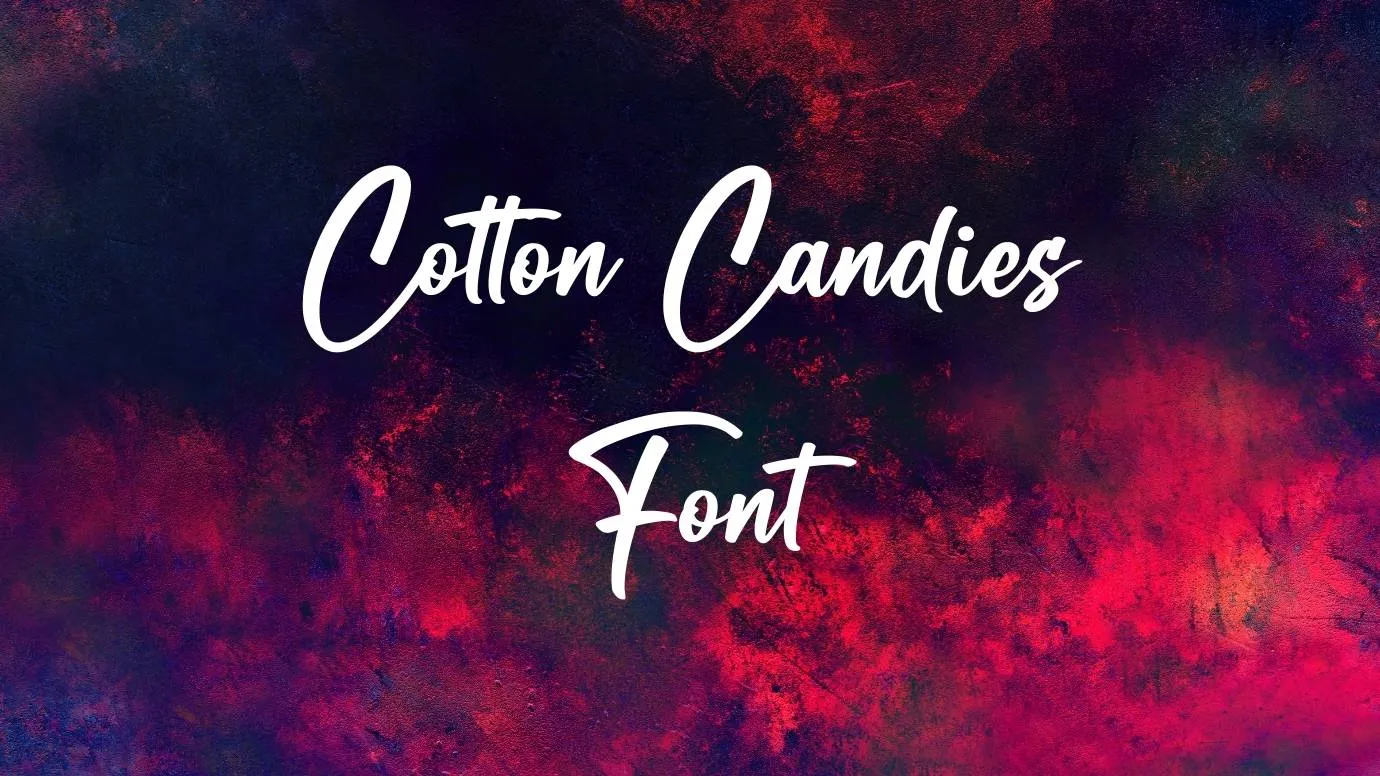
Cotton Candies Font Family is a unique script typeface that has an elegant bold look character. Dav Studio is the designer of this cursive typeface. This gorgeous typeface has more than 80 unique and astonishing characters along with numbers, uppercase letters, and some general punctuations.